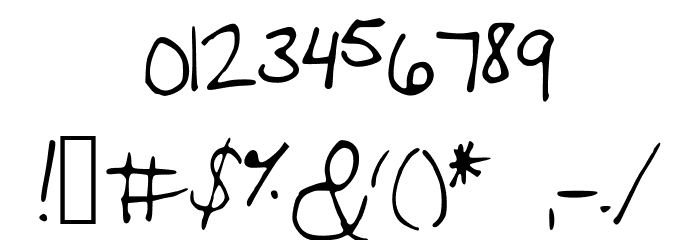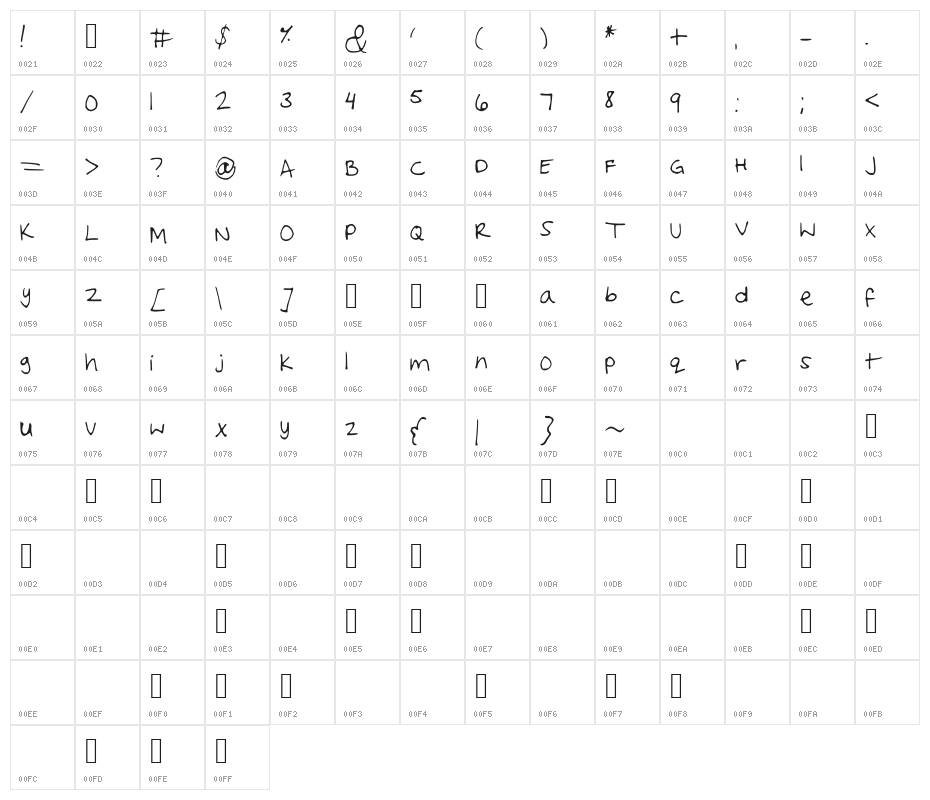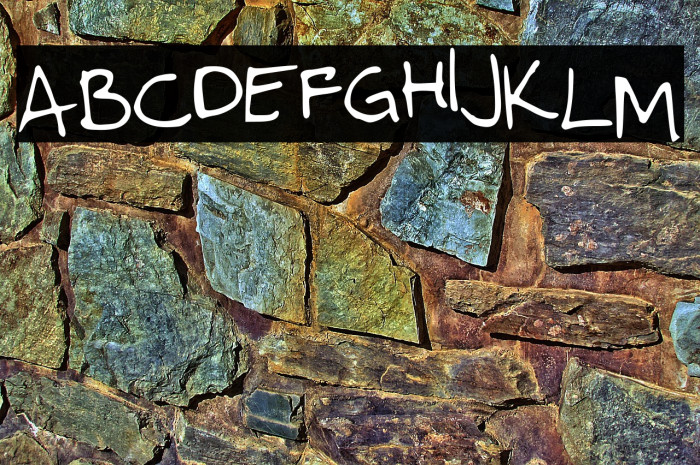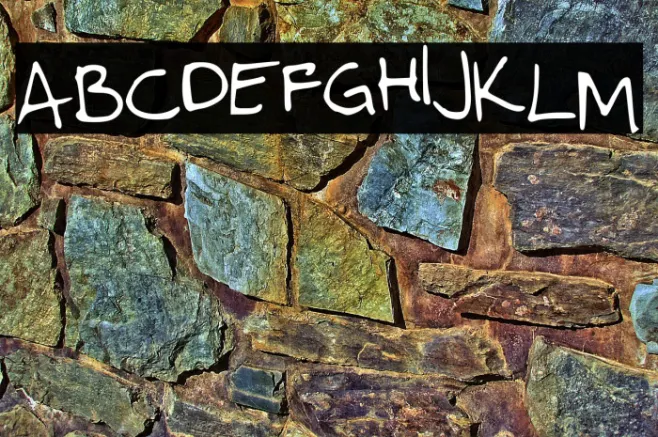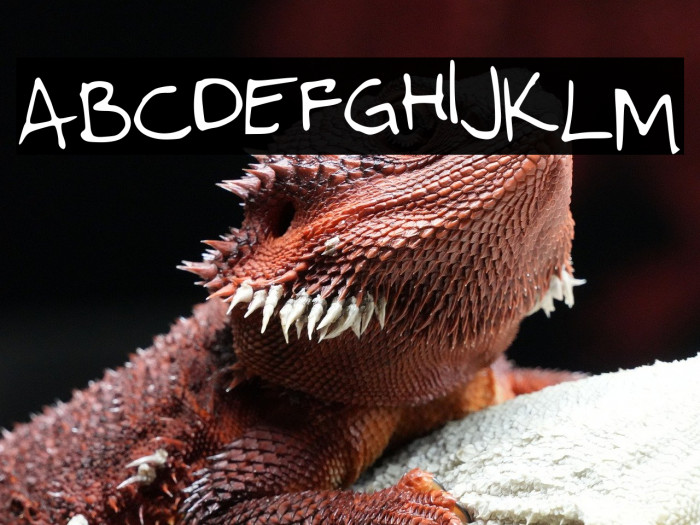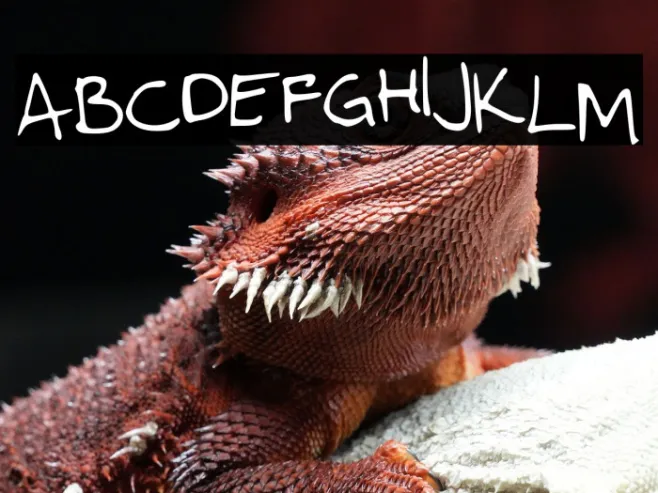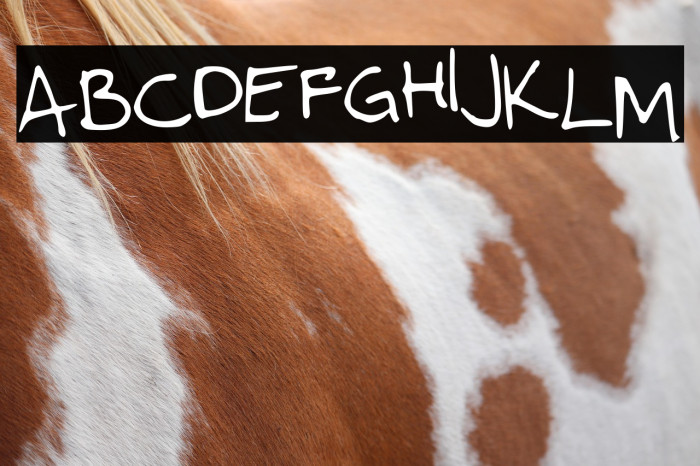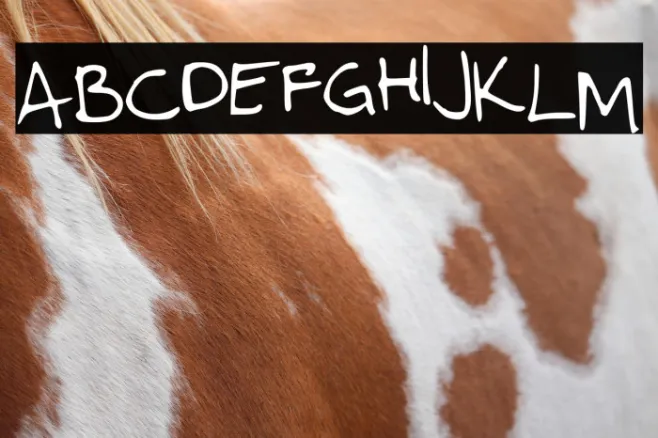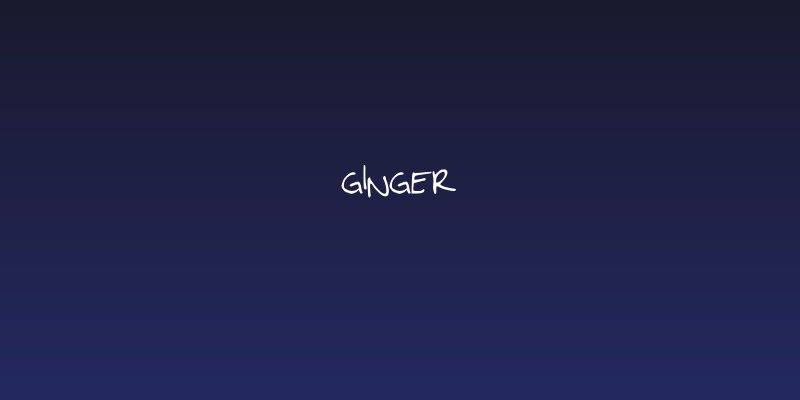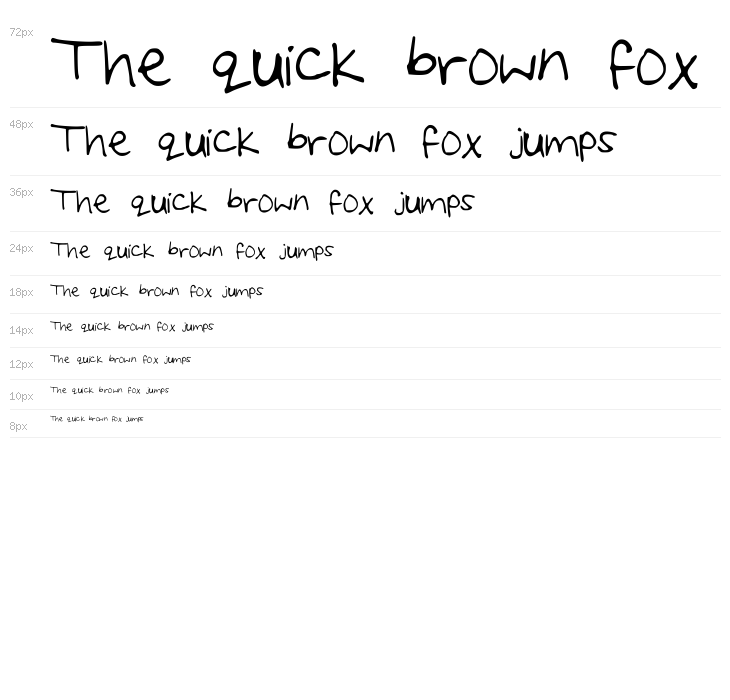
Ginger Font
Ginger Description
This font features a playful and informal handwritten style, characterized by its smooth, flowing lines and slightly irregular shapes. The letters have a casual, friendly appearance, with rounded edges and a consistent stroke width that gives it a relaxed and approachable feel. The uppercase and lowercase letters maintain a cohesive look, while the numerals and special characters complement the overall style. This font's design is reminiscent of casual handwriting, making it suitable for projects that require a personal touch.
| Proposed Projects | Ideal for greeting cards, personal invitations, children's books, and informal branding. |